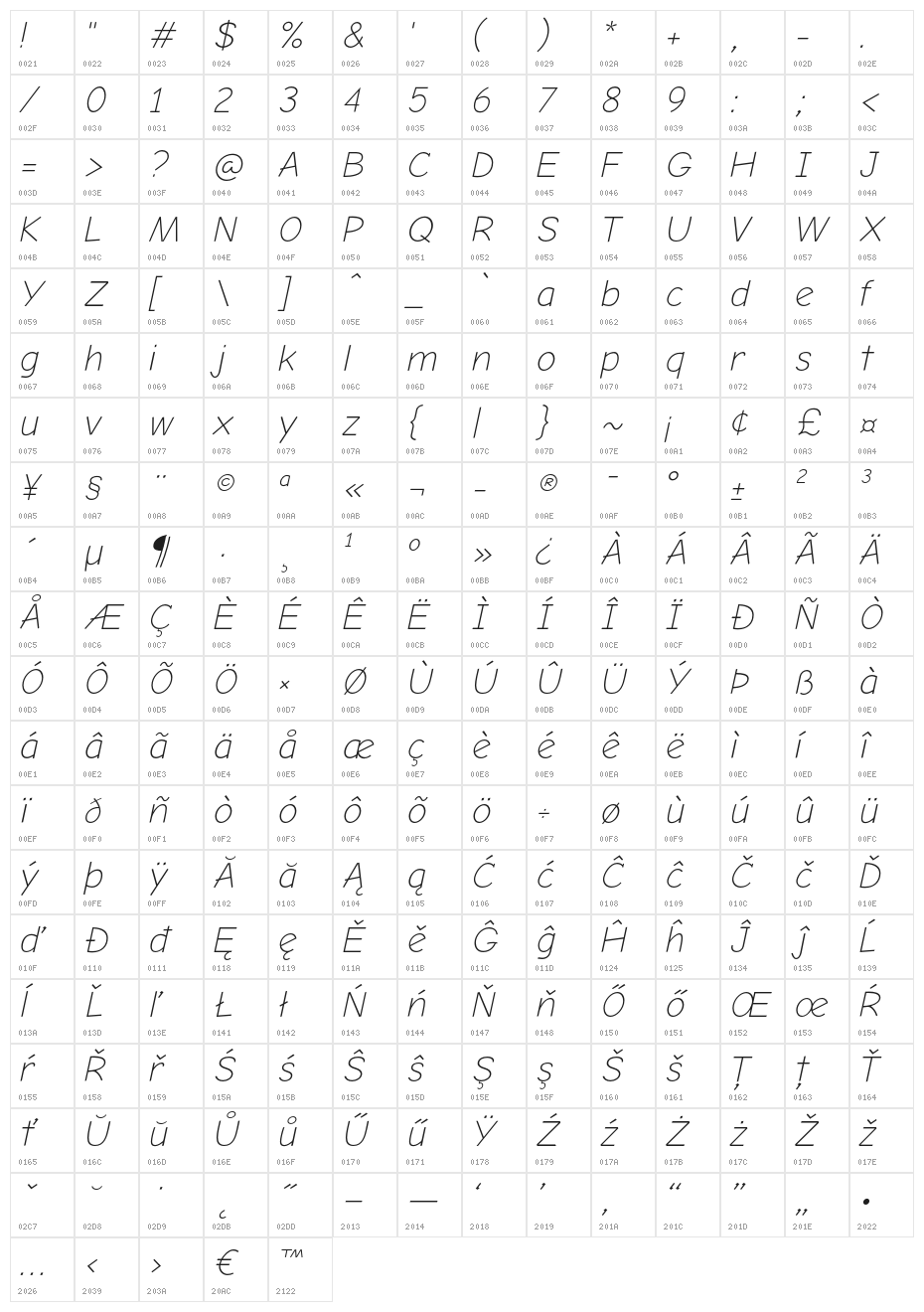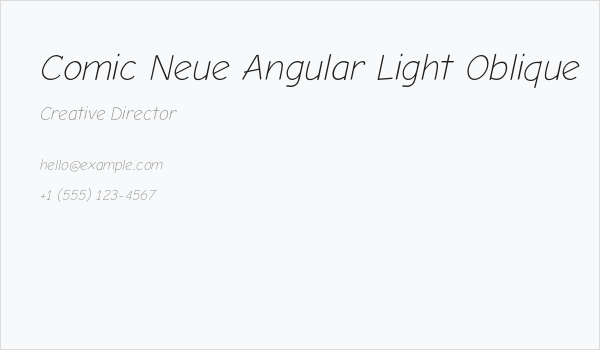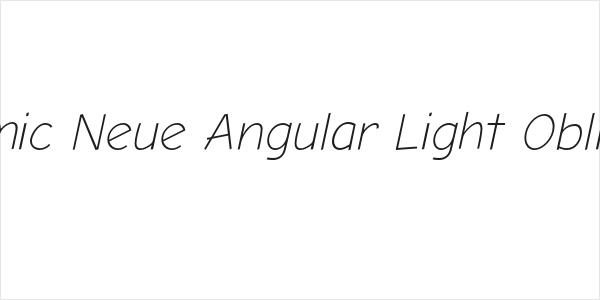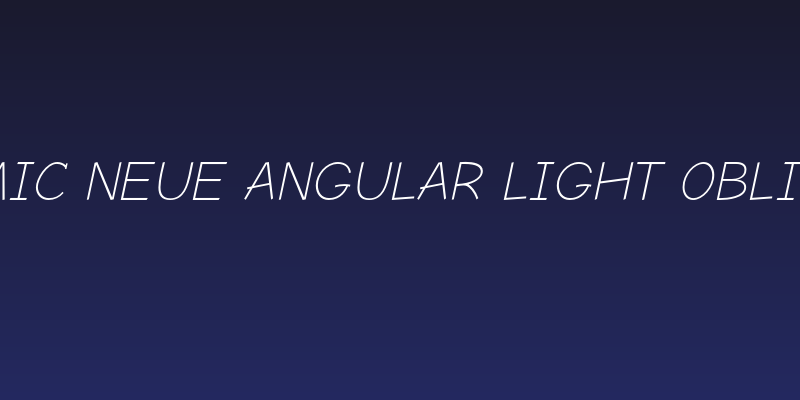
Comic Neue Angular Light Oblique Font
Comic Neue Angular Light Oblique Description
This font presents a playful and modern aesthetic with a light and angular design. The characters are slightly oblique, giving a sense of movement and dynamism. The strokes are thin, contributing to a clean and airy appearance. The font maintains a consistent style across uppercase, lowercase, numerals, and special characters, ensuring readability and versatility. Its informal yet structured look makes it suitable for a variety of creative projects.
| Proposed Projects | Ideal for comic books, children's books, casual branding, and playful advertising. |